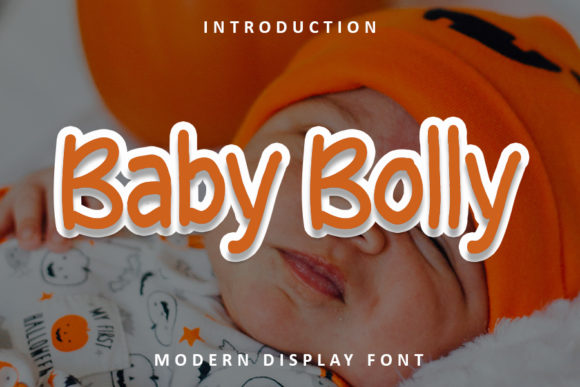
Introducing Baby Bolly Font,
the enchanting display font that exudes charm and sophistication.
Crafted by the talented FL Space, this font is a captivating display. Baby Bolly Font is more than just a font; it's a journey into a world of limitless creativity. Whether you're a seasoned designer or just starting out, this font is a must-have for your collection. Its versatility knows no bounds, making it perfect for a wide range of projects, from eye-catching logos and branding to vibrant social media graphics and website designs.
Dive into the world of Baby Bolly Font, and let your imagination soar.
With its playful personality and elegant curves, Baby Bolly Font adds a touch of whimsy and grace to any project. Its distinct character shines through, making your designs stand out from the crowd. And as a bonus, this font includes a collection of unique swashes and alternates, giving you endless opportunities to add a personal touch to your creations.